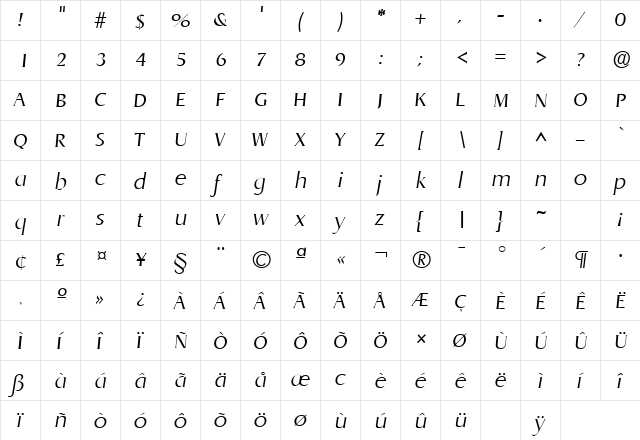
DragonLH Italic Font Preview
DragonLH Italic
Design Context for DragonLH Typeface
DragonLH takes a measured approach to typography — its balanced proportions and neutral character make it a reliable workhorse for both digital and print work. Its italic angle brings a sense of urgency and motion to the letterforms.